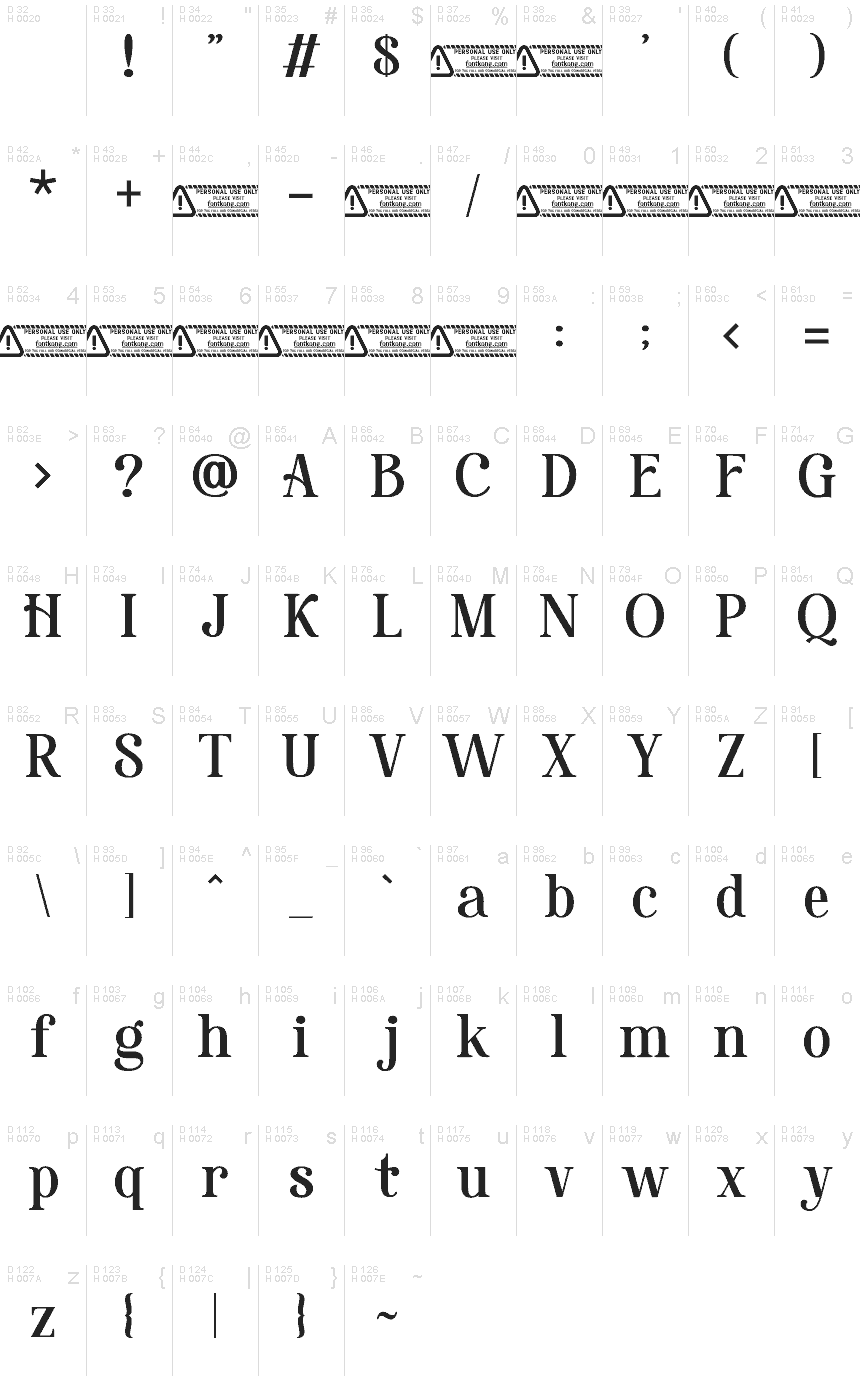
Ronald Tumb
Ronald Tumb font by Kong Font is a classic serif typeface that exhibits elegance and sophistication. The authoritative font conveys the power of the language which makes it suitable for formal projects most of all. Traditional yet neat, Ronald Tumb will suit users who are after a professional look.
Use this free serif font for academic texts, newspapers, magazines, reports, documents, diplomas, official announcements and invitations, certificates and other official or semi-official uses.